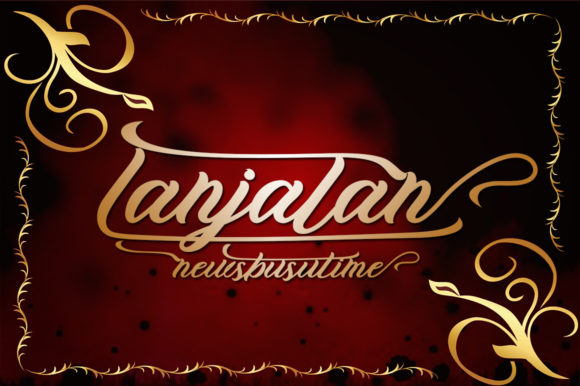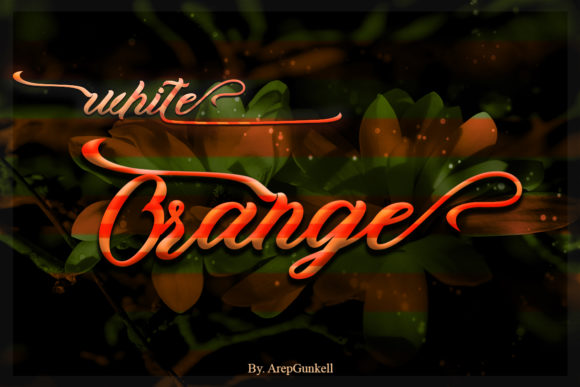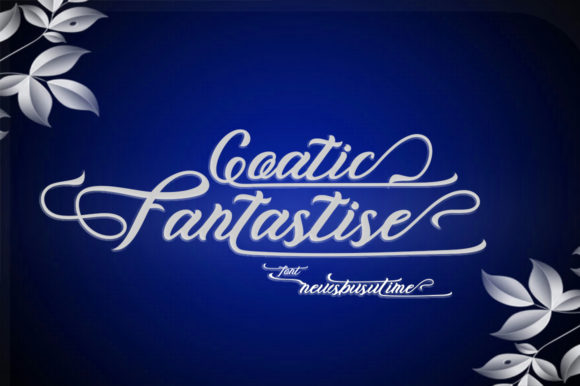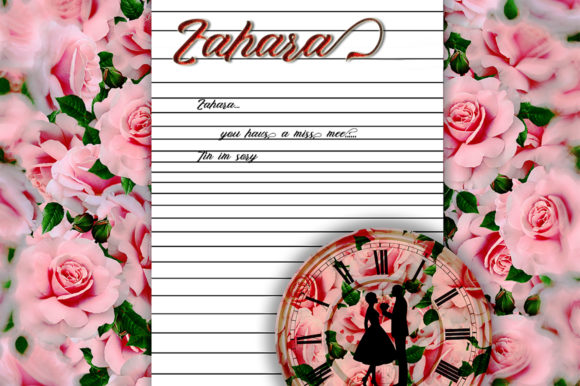
Introduction to News Busu Time Font Font
Fonts play a crucial role in design, and the News Busu Time Font font is a typeface that brings both character and versatility to any project. Whether you’re working on a branding project, a website, or a print design, the News Busu Time Font font offers a unique style that can elevate your work.
News Busu Time is a distinct, elegant handwritten font that blends traditional influences into a contemporary aesthetic.
This typeface will look outstanding in both formal and non-formal designs .
Key Features of News Busu Time Font Font
Why Choose News Busu Time Font Font?
The News Busu Time Font font is more than just a typeface – it’s a design tool that helps you communicate your message with style and clarity. Its unique character set and versatile design make it suitable for a wide range of applications, from elegant invitations to bold headlines.
With its carefully crafted letterforms and balanced proportions, the News Busu Time Font font ensures readability and visual appeal across all mediums.
What makes News Busu Time Font font special?
The News Busu Time Font font stands out with its unique design, exceptional readability, and versatility across various design applications.